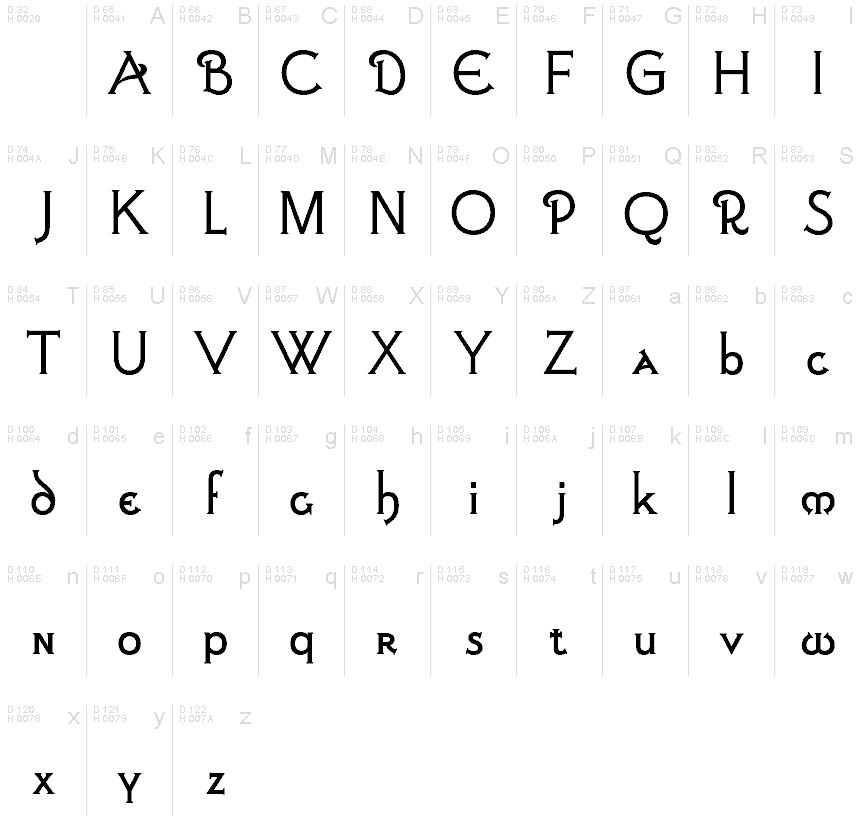
CS Nature Regular Demo
CS Nature font by Craft Supply Co. is an elegant serif font with classical, expressive, and formal vibes. This versatile display typeface carries subtle traditional influences evident in the design of its formal letters. Its delicate thin lines, highly visible serifs, and tall size breathe beauty into all projects while supplying healthy amounts of readability.
Readers can enjoy using this free serif font for editorial work, magazine covers, printed book layouts, body text in websites or newspapers. They can also use it as attention-catching headlines on posters and marketing purposes; promotional items such as labels or product packaging are further ways to use CS Nature.